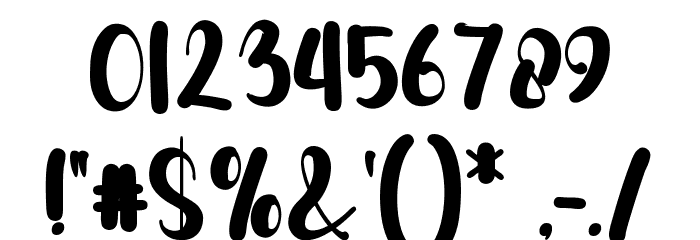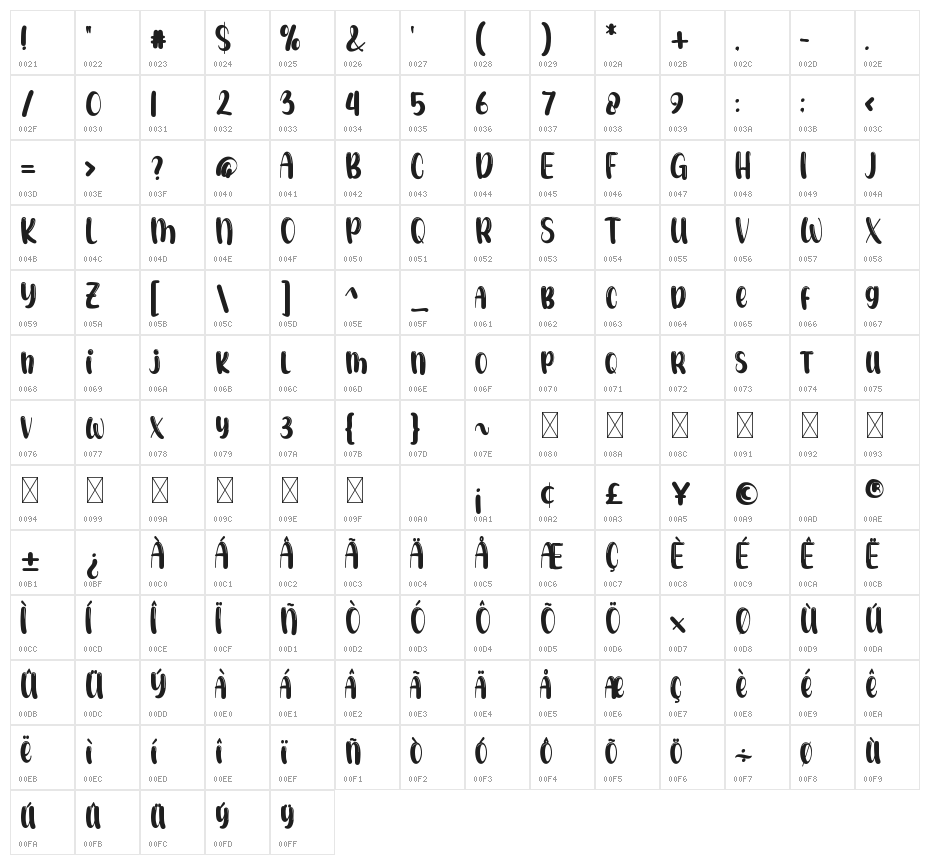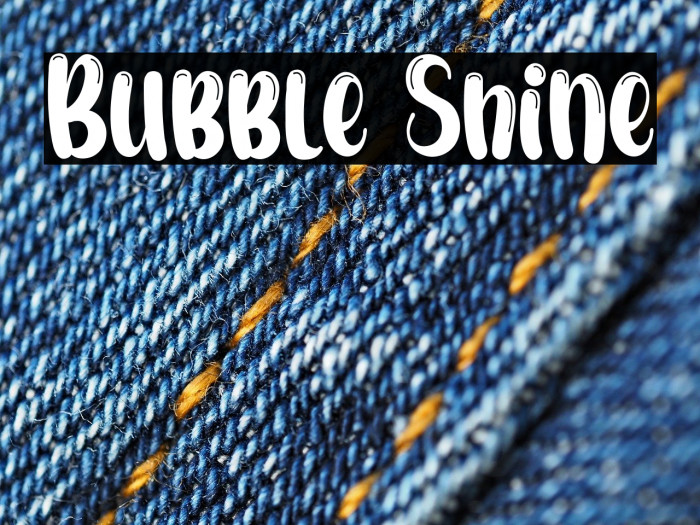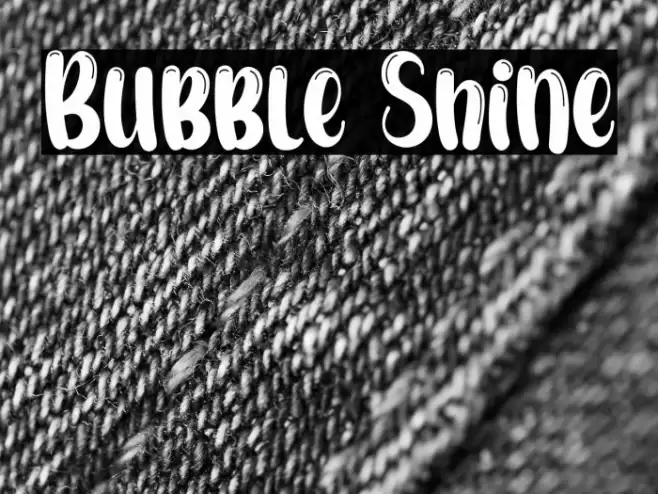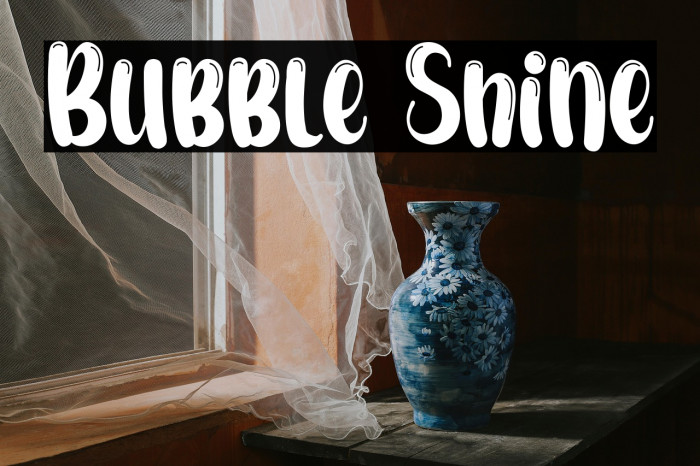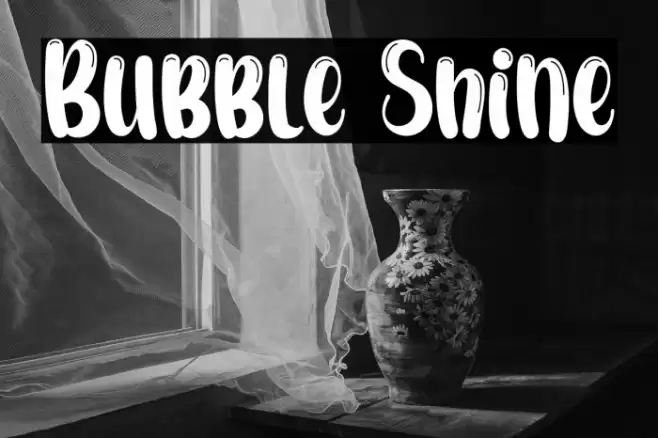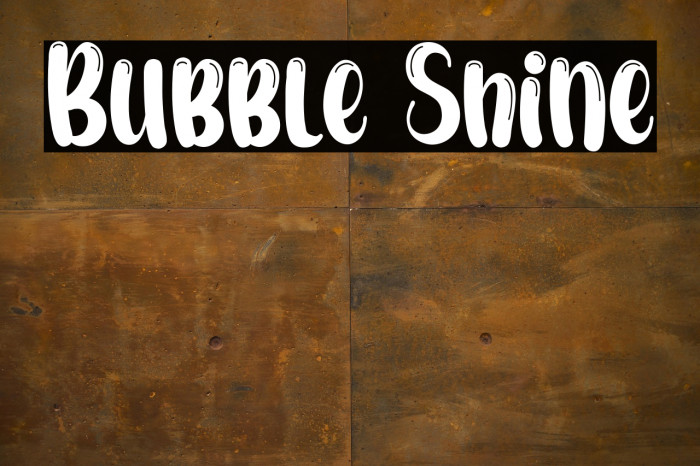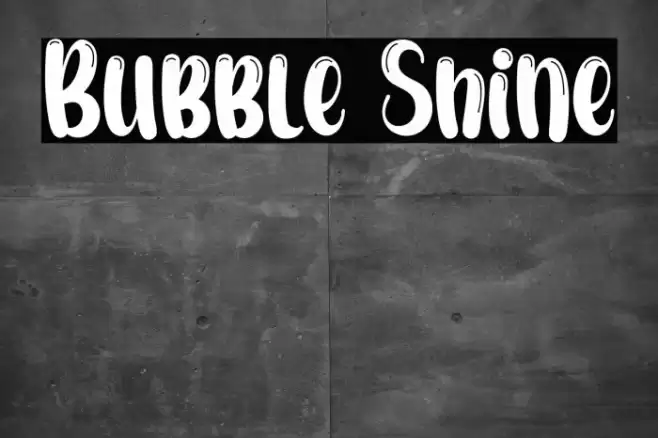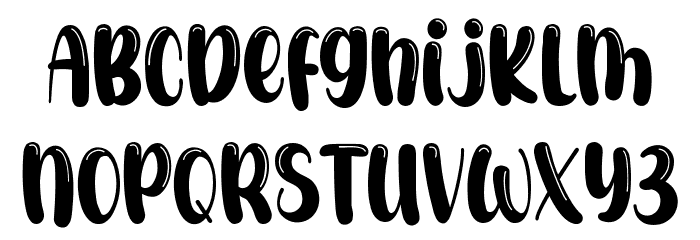
Bubble Shine Font
Bubble Shine Description
This playful and bold font features a bubbly, rounded style with a shiny appearance that gives it a lively and energetic feel. The characters are thick and substantial, with a consistent stroke width that adds to the font's boldness. The uppercase and lowercase letters maintain a cohesive look, with smooth curves and rounded edges that enhance its friendly and approachable nature. The numbers and special characters are designed to match the overall style, ensuring a uniform look across all text. This font is ideal for projects that require a fun and engaging aesthetic.
| Overall Style | Playful, Energetic, Fun |
| Proposed Projects | Perfect for children's books, playful branding, party invitations, and eye-catching headlines. |